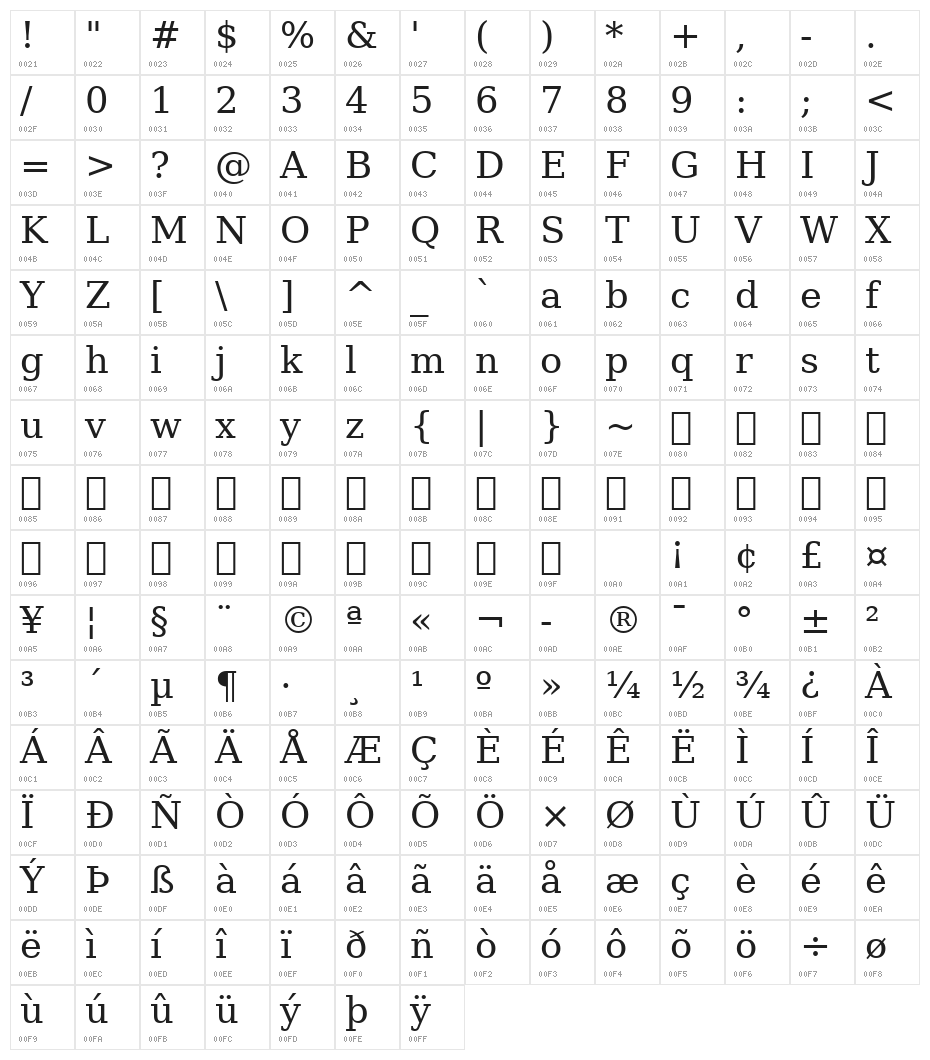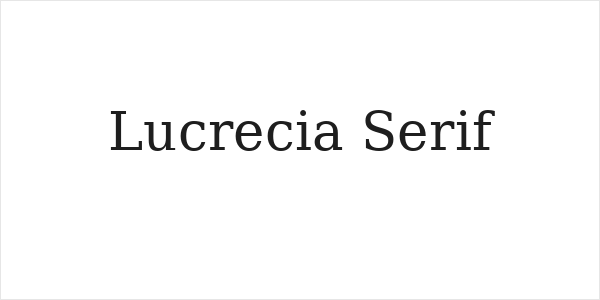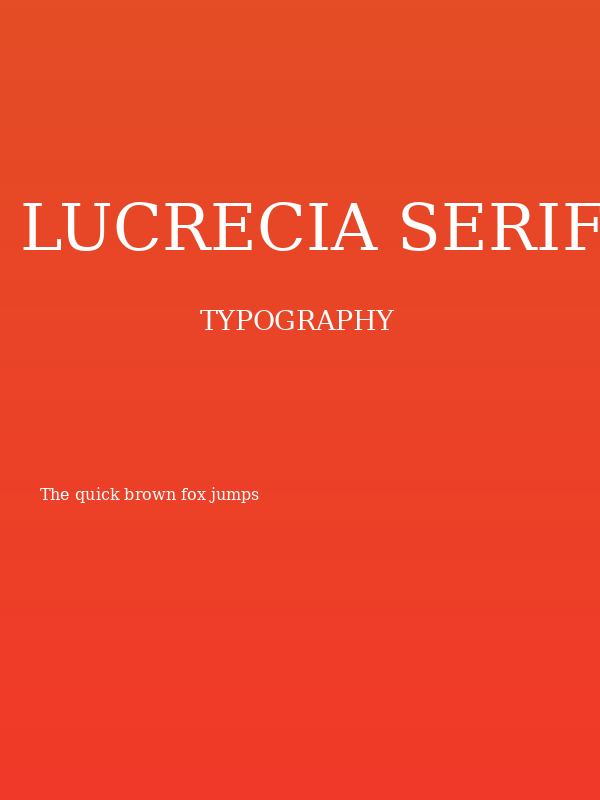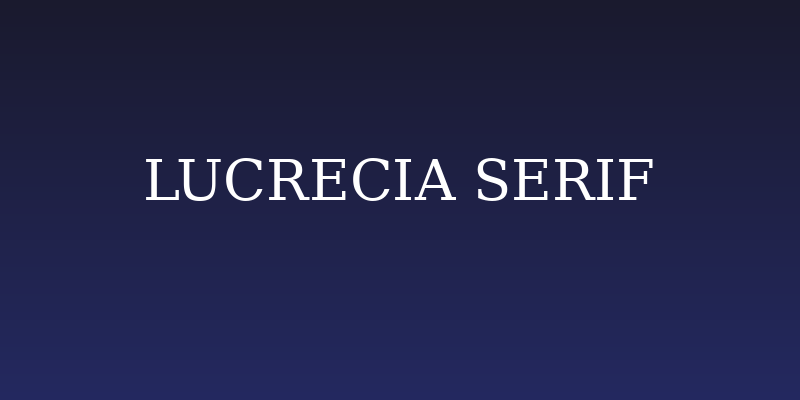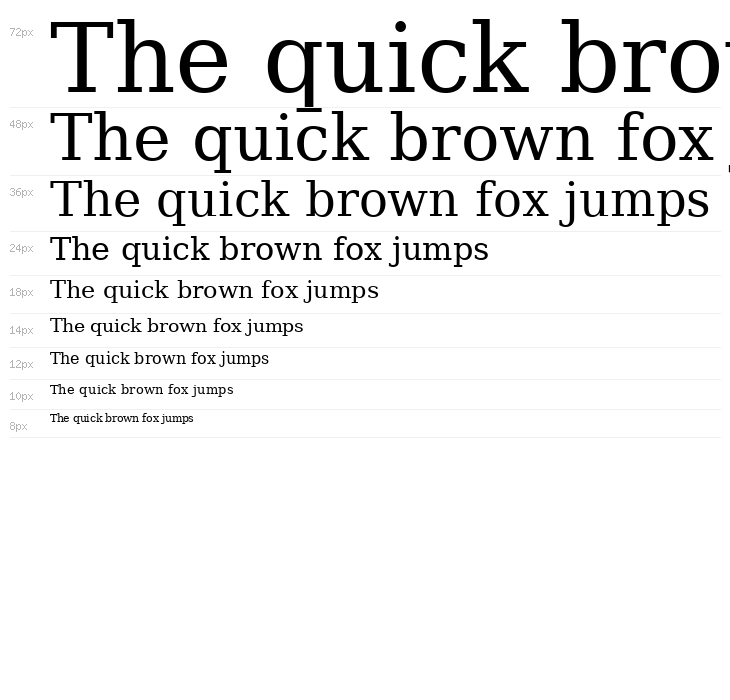
Lucrecia Serif Font
Lucrecia Serif Description
This typeface features a classic serif design with elegant and refined strokes. The uppercase letters are bold and commanding, while the lowercase letters maintain a consistent and harmonious flow. The numerals are clear and well-defined, making them suitable for both display and text settings. The special characters are thoughtfully designed to complement the overall aesthetic, ensuring versatility across various applications. The font's structure is balanced, with a medium contrast in stroke thickness, providing readability and sophistication.
| Proposed Projects | Ideal for editorial design, book covers, formal invitations, and branding projects that require a touch of elegance and tradition. |